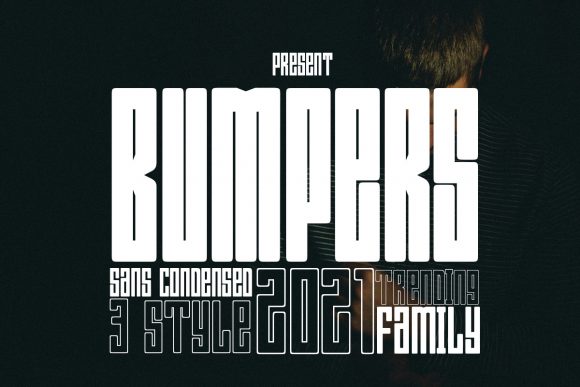
Prepare yourself to be dazzled by Bumpers Font, the display font that radiates bold, futuristic energy, ready to transform your creative projects into captivating masterpieces.
Picture this: your web designs will command attention with every click, your business cards will leave an unforgettable impression, and every personal touch you add to your projects will carry an air of distinction. Bumpers Font is the font that empowers you to break free from the ordinary and embrace the extraordinary.
With its cutting-edge design, Bumpers Font is not just a collection of letters; it's a gateway to a world of endless possibilities. Whether you're a seasoned designer or just starting your journey into the realm of creativity, Bumpers Font will be your trusty companion, guiding you towards captivating outcomes.
Imagine the excitement of crafting Christmas ornaments adorned with the playful spirit of Bumpers Font. Your festive creations will radiate an irresistible charm, spreading joy and cheer wherever they go. Or perhaps you envision a social media campaign that captures the hearts of your audience. With Bumpers Font as your ally, your words will dance across screens, leaving an indelible mark on the digital landscape.
The versatility of Bumpers Font knows no bounds. It seamlessly adapts to a myriad of creative endeavors, from logos and branding materials to website headers and product packaging. Its bold strokes and futuristic allure will elevate your designs to new heights, captivating the attention of all who encounter them.
Embrace the power of Bumpers Font and unleash your creativity. Let your imagination soar as you craft designs that resonate with individuality and style. With this remarkable font at your fingertips, the possibilities are limitless, and the path to captivating creations awaits.
Join the ranks of those who have discovered the transformative power of Bumpers Font. Experience the thrill of creating designs that leave a lasting impression, and prepare to be amazed by the endless possibilities that unfold before you.